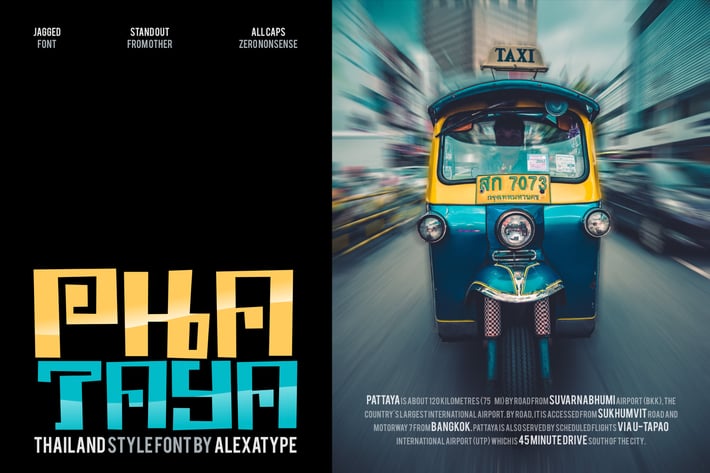
Phataya - Thailand Style Font
Phataya - Thailand style font
Phataya is inspired by unique shapes of tagalog font.
The quirky and jagged shapes gives the word more energy and impact to the project.
Go explore Thailand with this Phataya....
enjoy the tuk-tuk ride.